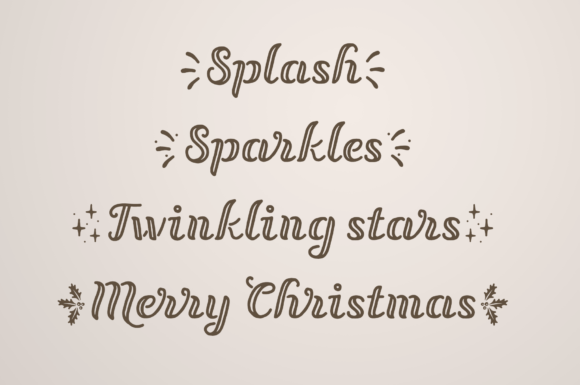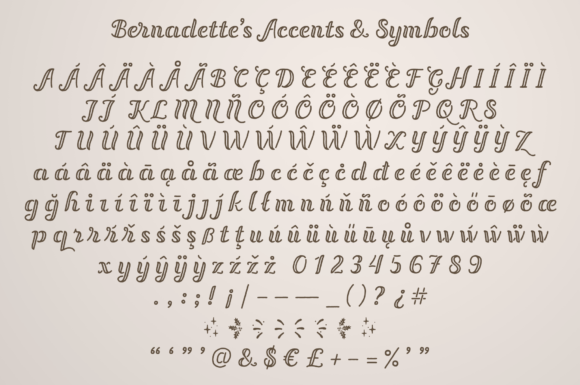
Bernadette Font
About Bernadette Font
Bernadette is a stylish and delicate handwritten font. Not too thin and not too thick, balanced and varied, this font was designed to enhance the beauty of your projects.